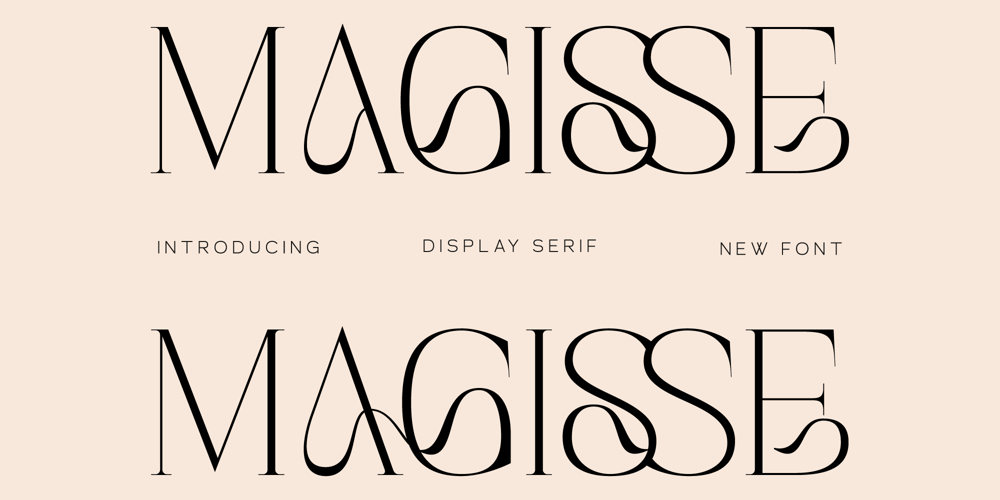
Magisse
Magisse font
Magisse Font Family was designed by Heru Utama Putra and published by Letterena Studios. Magisse contains 2 styles and family package options. Magisse Typeface is a modern and classic typeface that has own unique style & modern look. This typeface is perfect for an elegant & luxurious logo, book or movie title design, fashion brand, magazine, clothes, lettering, quotes, and so much more.